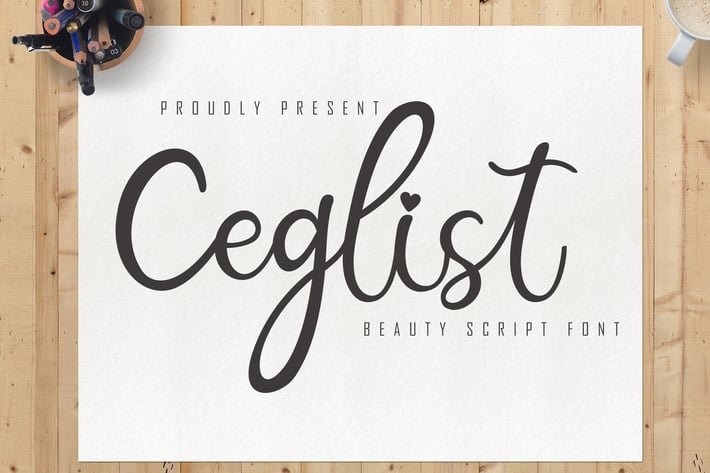
Ceglist Beauty Script Font
Ceglist is a kind of beautiful cute font that has several ligature in it, suitable for those who like cute or pretty and feminine fonts for design needs
Ligature\